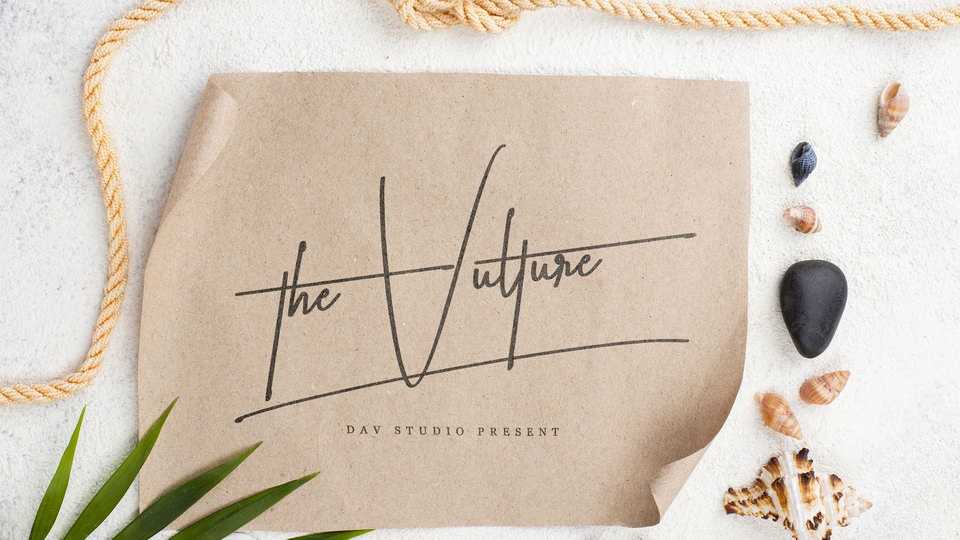
Download The Vulture font, a stylish signature typeface with natural strokes accompanied by firm lines. The Vulture is suitable for greeting cards, logos, branding, mockups, DIY projects, etc.